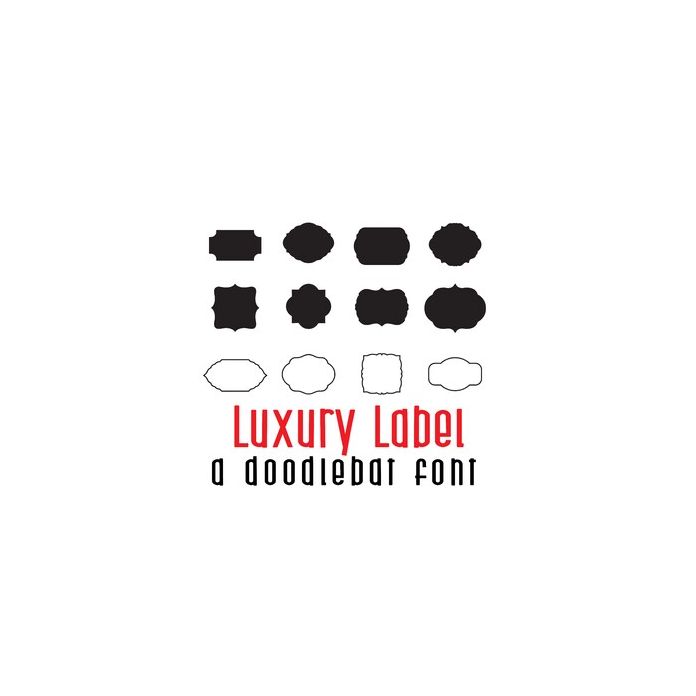
This fun doodle style doodlebat font features 52 journaling labels. Perfect for cards, crafts, gifts, decor, scrap book pages, planner stickers and more! Dingbats are A-Z (solid) and a-z (outline).